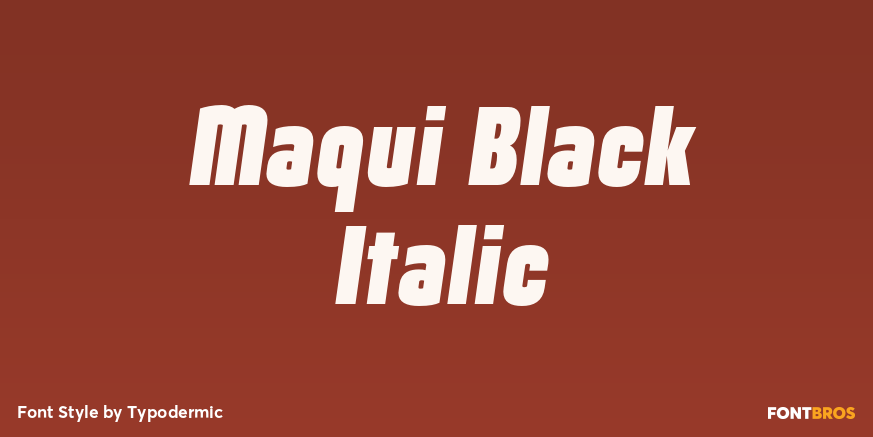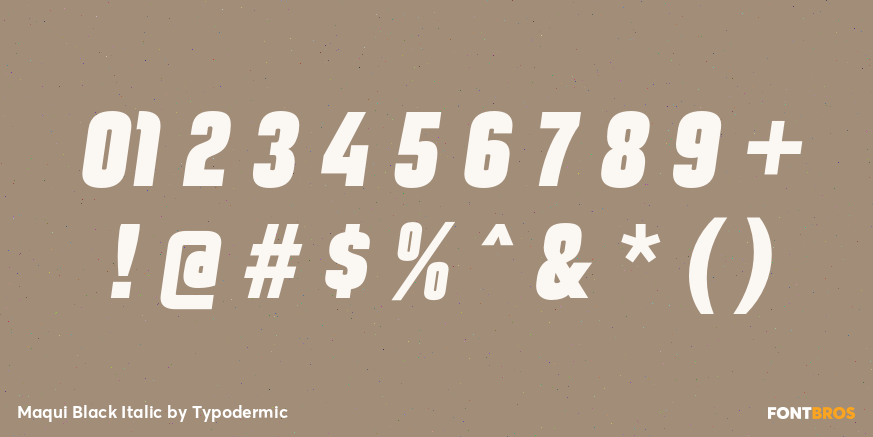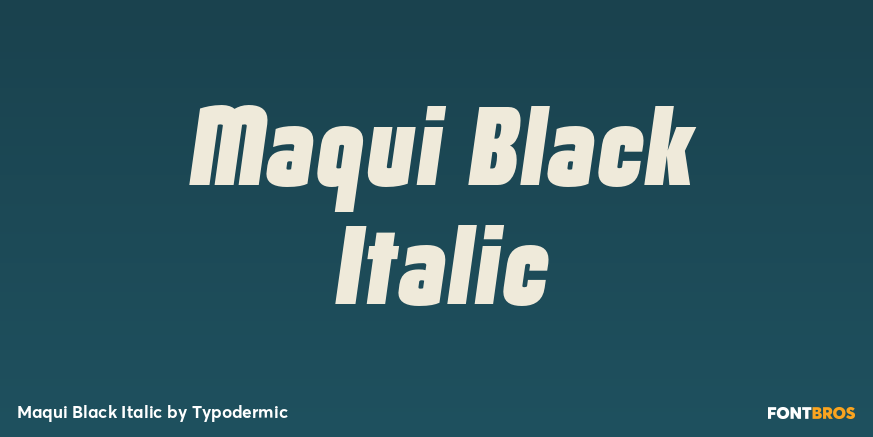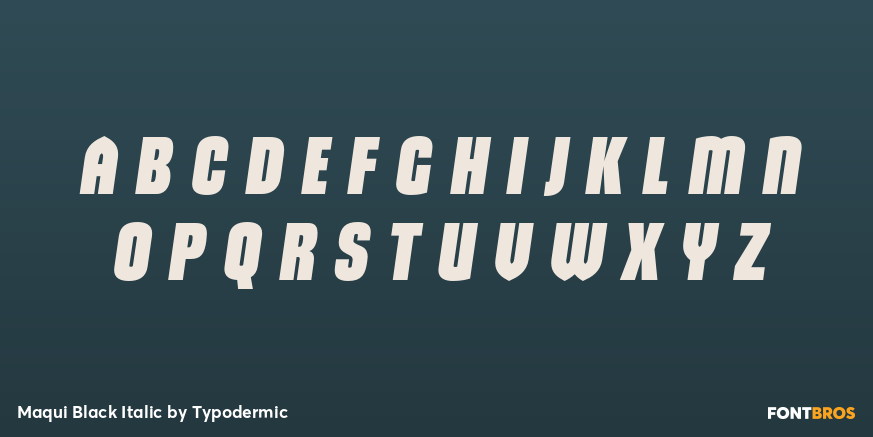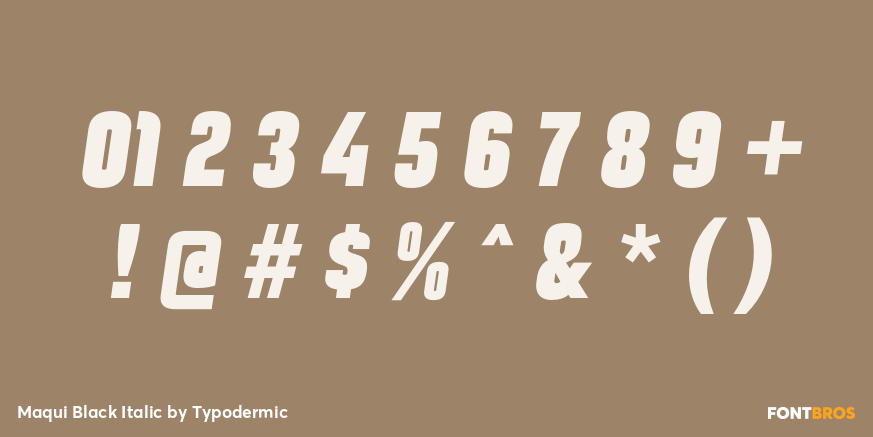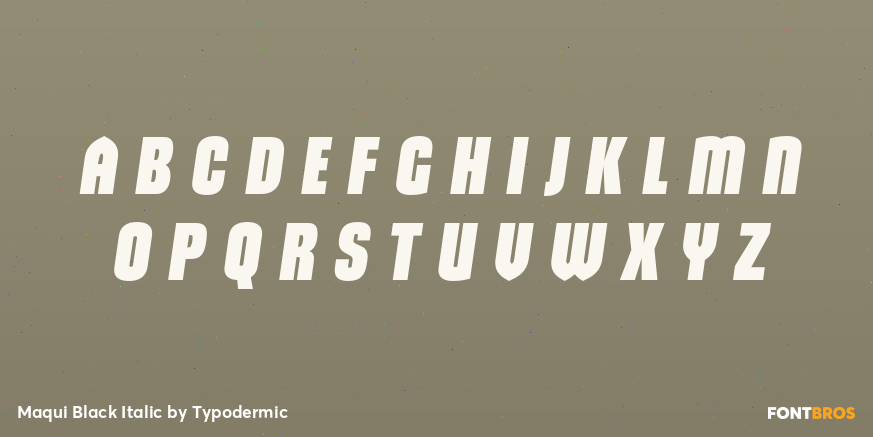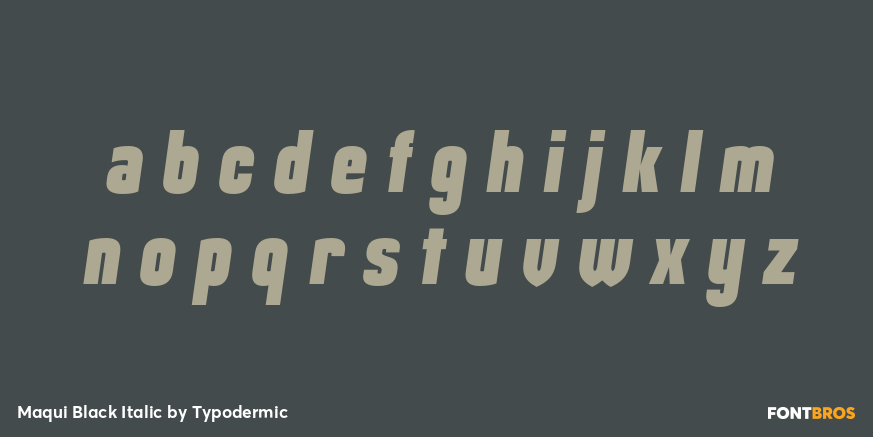
Maqui Black Italic
Technology branding often ages faster than the technology itself. Push a typeface too far toward sci-fi and serious equipment starts to look speculative; retreat to a generic corporate sans and every manufacturer begins to resemble everyone else. Maqui offers a quieter alternative: a compact, minimalist display family with enough architectural character to look deliberate without turning typography into the product.
Its narrow proportions are especially useful in the expanding infrastructure behind AI, cloud computing, electrification, and advanced manufacturing. Data-center systems, liquid cooling, rack and enclosure equipment, battery storage, EV charging, switchgear, inverters, grid-control systems, and energy engineering all involve long product names, model numbers, and technical terminology. Maqui can handle equipment-series names, cabinet markings, brochure covers, trade-show walls, project names, and presentation headings without making the technology look like science fiction.
Industrial automation, warehouse robotics, machine vision, semiconductor equipment, CNC systems, and factory-control hardware suit the same restrained approach. Maqui gives machine badges, product-family names, control-panel headings, specification sheets, and exhibition graphics more identity than a default corporate grotesque while remaining quiet beside diagrams, machinery, and dense technical information.
It also fits the systems that shape contemporary buildings: architectural lighting, façade systems, smart glass, commercial HVAC, elevators, access systems, acoustic products, modular construction, and building automation. Large technology campuses, logistics parks, data-center campuses, mixed-use developments, and transit projects can extend the same visual language to hoardings, directories, project signage, and environmental graphics.
Maqui’s defining idea is intentionally modest. Its condensed proportions, squared construction, and distinctive peaked forms introduce just enough authorship into otherwise minimal lettering. It was designed to feel modern and industrial without relying on familiar futuristic tricks, making it particularly useful for products and infrastructure intended to remain in service long after a design trend has passed.
Maqui works best when the typography needs to support the engineering rather than advertise itself: a cooling system beside a technical diagram, a battery platform across an exhibition wall, a machine series stamped onto an enclosure, or a development name stretched across a construction site.